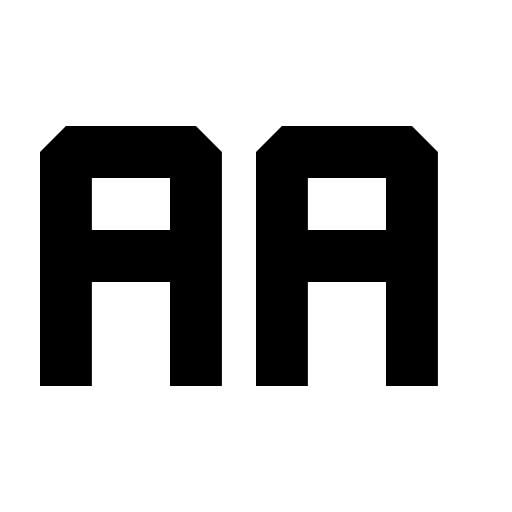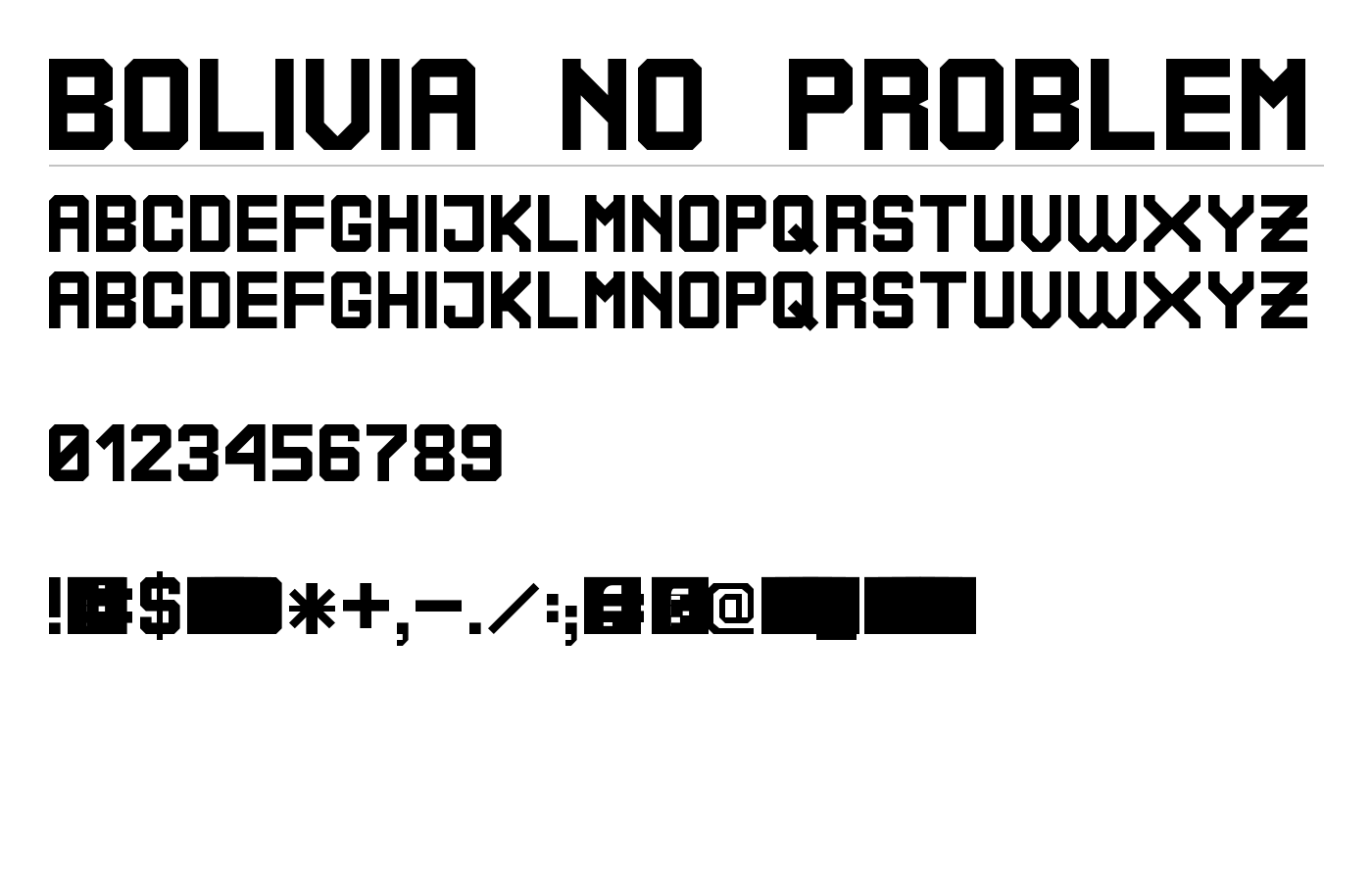
Bolivia No Problem is a bold, geometric sans serif font featuring strong, angular letterforms with a sturdy and modern appearance. Its condensed width and consistent stroke weight make it ideal for striking headlines, branding, and signage where clarity and impact are essential. This font’s industrial and slightly futuristic vibe works well for projects seeking a confident, tech-savvy, or urban aesthetic.
Bolivia No Problem Font
About Bolivia No Problem Font